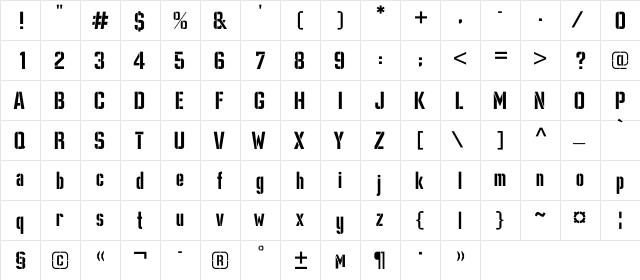
DangerC Regular Font Preview
DangerC Regular
DangerC Regular Font Details
Design Context for DangerC Typeface
DangerC offers clean, dependable letterforms without strong stylistic allegiance, making it a practical choice for designers who need flexibility.